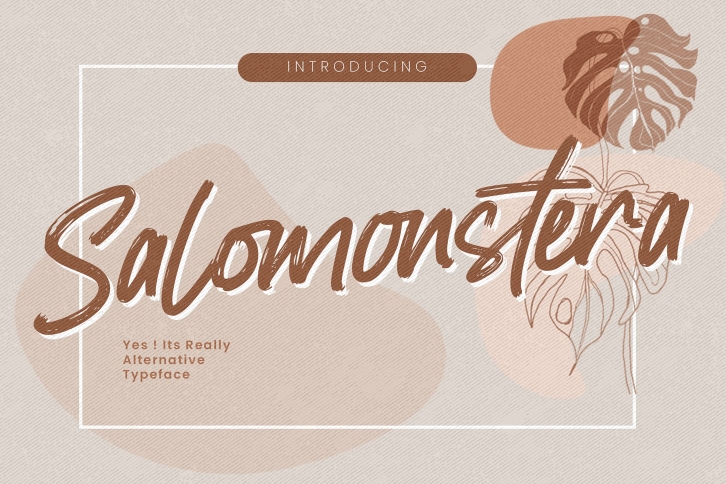
Salomonstera is a great font that was designed by Gassstype Studio. Imagine the amount of combinations you can create using this font! The archive is 12.65 MB and it was released on December 9, 2021. Salomonstera looks beautiful on wedding invitations, greeting cards, logos, posters, labels, t-shirt designs, logos, business cards and is perfect for use in ink or watercolor works, fashion, magazines, packaging and food menus, children's books and more!